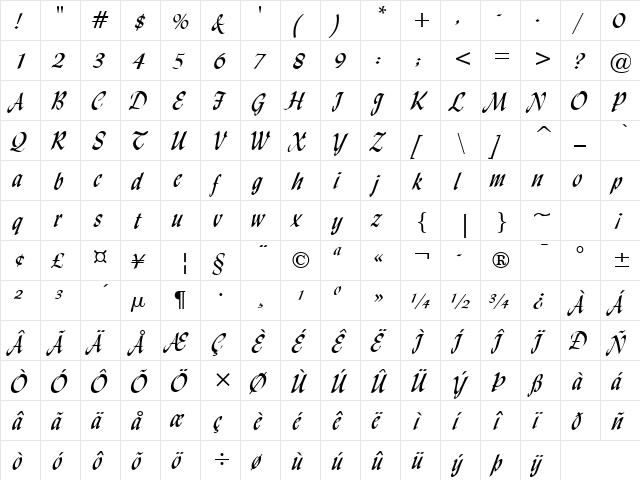
Lynda Script Regular Regular
Design Context for Lynda Script Regular Typeface
Lynda Script Regular flows with the natural rhythm of handwritten lettering, making it ideal for designs that call for warmth and personal expression.
Font Pairing: Combine Lynda Script Regular with a simple geometric sans for maximum contrast — the tension between flowing curves and clean structure is a classic typographic pairing.
Pro Tip: Use Lynda Script Regular for short runs of text — names, titles, or taglines. Extended body copy in script faces tires the eye quickly.